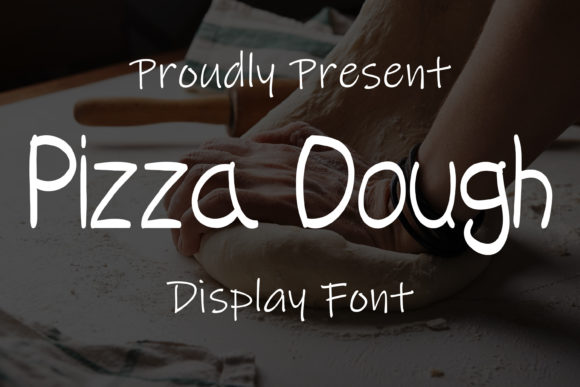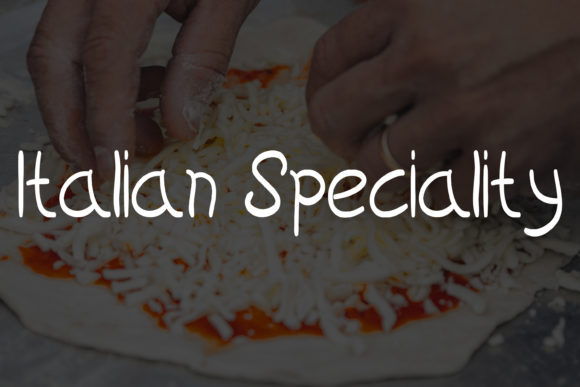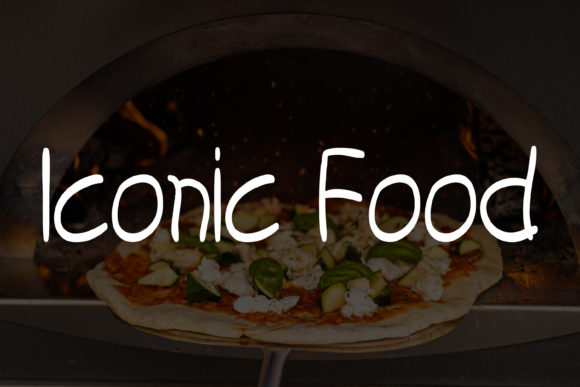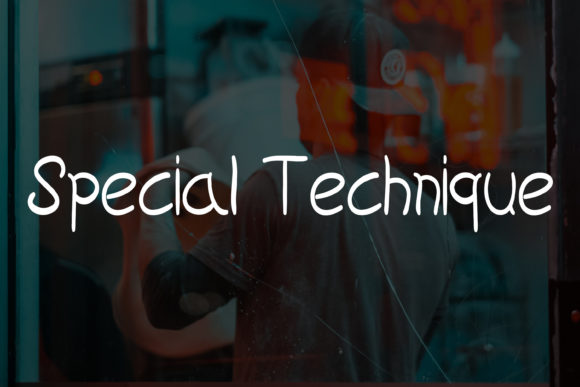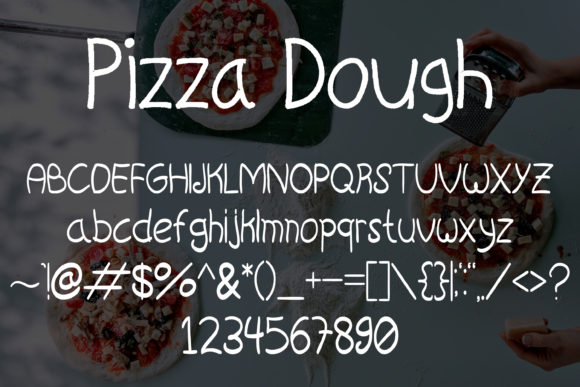
Pizza Dough Font
About Pizza Dough Font
Pizza Dough is a cool and neat handwritten font. Add it to each of your party invitation, swimming gathering or pretty much any design that requires a touch of youth and joy.